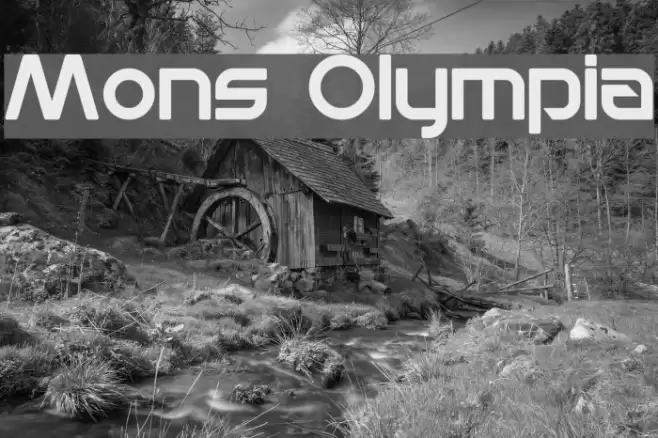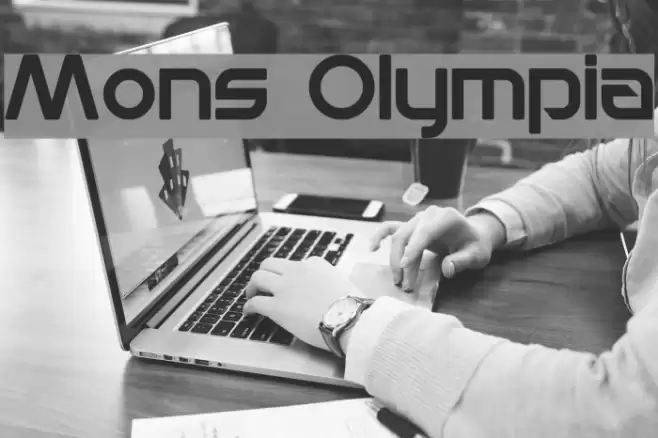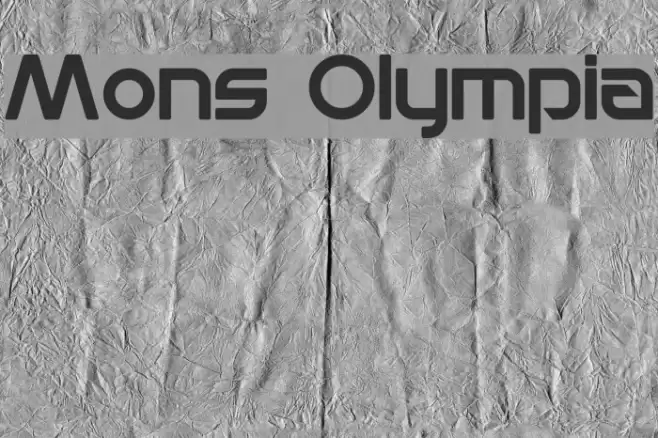
Mons Olympia Font
Mons Olympia Description
This font features a modern, geometric design with a strong emphasis on rounded edges and uniform line thickness. The uppercase letters are bold and structured, with a futuristic aesthetic that is both sleek and stylish. The lowercase letters maintain the same geometric style, offering a consistent look across different text cases. Numbers and special characters are designed to match the overall theme, providing a cohesive appearance. The font's clean lines and balanced proportions make it suitable for a variety of design applications.
A modern, geometric font with rounded edges and uniform thickness from Uncategorized fonts.